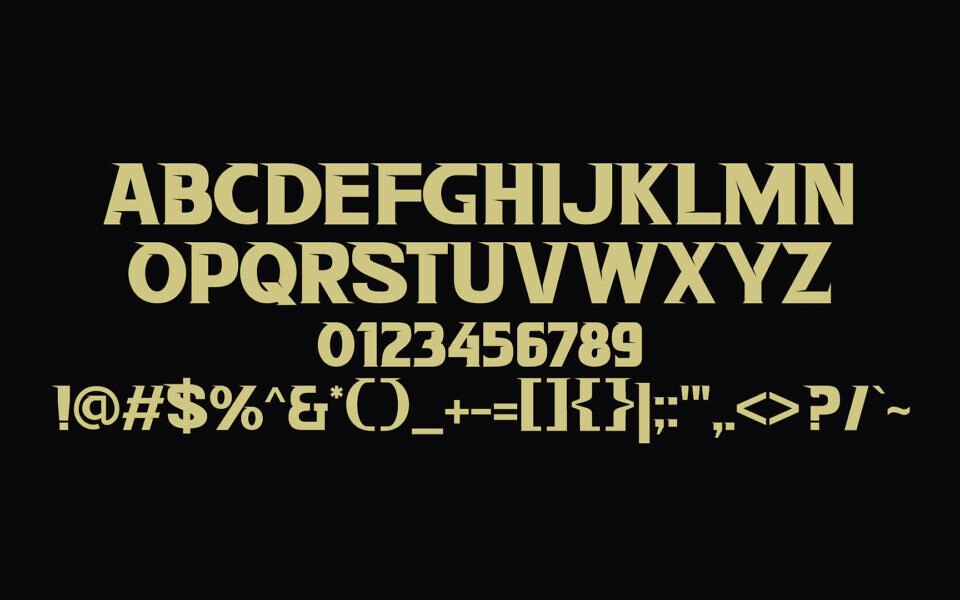
Legal Warrior Font
Legal Warrior Font, crafted by Studio Hello Good, is a bold sharp display typeface designed for impactful logos and branding. Ideal for industries like clothing, music, and movies, this font delivers a strong visual presence.